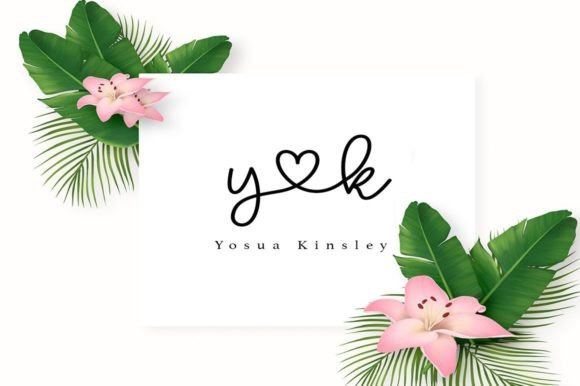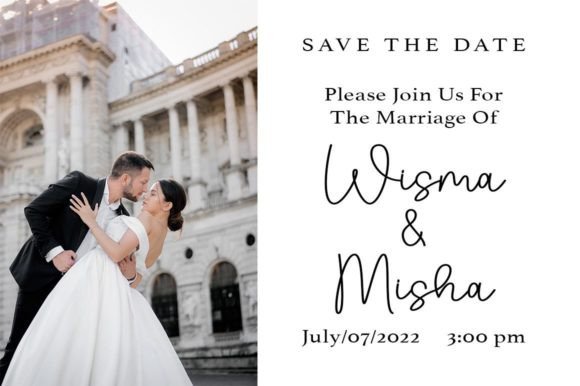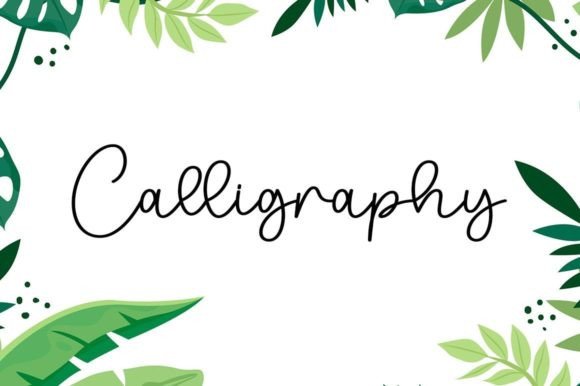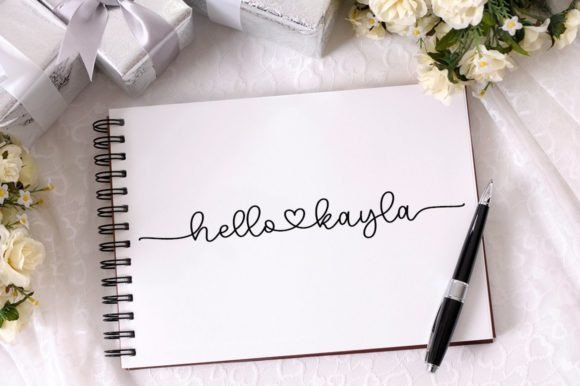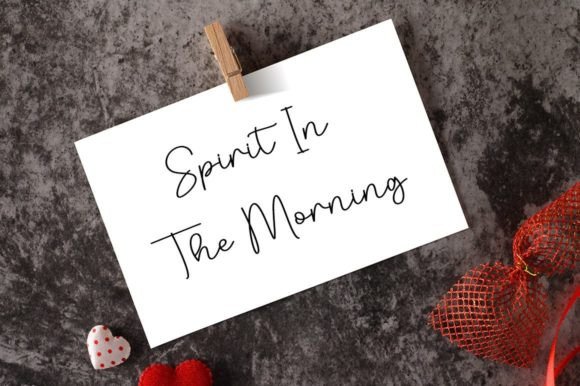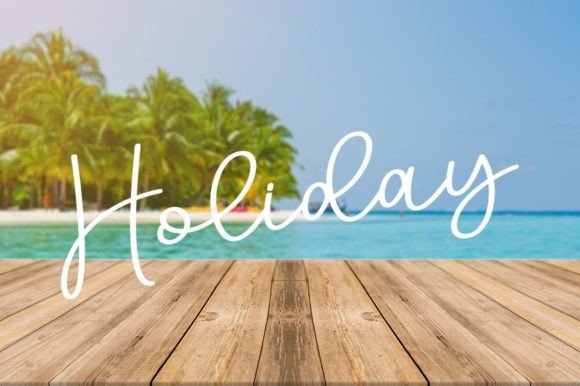
Introducing Callisa Font: Elevate Your Designs with Elegance
Are you a designer or crafter looking for a font that adds a touch of sophistication and beauty to your projects? Look no further than Callisa Font. This elegant script font is designed to enhance the aesthetic appeal of your work, making it perfect for a wide range of creative endeavors.
Balanced and Varied: The Unique Charm of Callisa
Callisa Font strikes the perfect balance between style and readability. Not too thin and not too thick, its carefully crafted design ensures that your text is both visually appealing and easy to read. This balanced approach makes Callisa an excellent choice for various applications, from elegant branding and advertising to beautiful stationery and craft projects.
Whether you’re a professional designer working on a client’s branding project or a crafter creating handmade cards and invitations, Callisa Font is an excellent addition to your toolkit. Its versatility means it can be used in a variety of contexts:
- Branding and Logos: Create a lasting impression with elegant and memorable logos.
- Stationery: Elevate your letterheads, invitations, and greeting cards with a touch of class.
- Digital Media: Enhance your social media graphics, blog posts, and website content with beautiful typography.
- Crafting: Add a professional and aesthetic appeal to your DIY projects, such as handmade crafts and personalized gifts.
Why Choose Callisa Font?
With so many fonts available, why should you choose Callisa? Here are a few compelling reasons:
- Unique Style: Callisa offers a distinctive look that sets it apart from more common fonts.
- Versatility: Its balanced design makes it suitable for a wide range of projects and applications.
- Support for Creativity: With a rich set of glyphs and swashes, Callisa encourages creativity and experimentation.
Callisa Font is a beautiful, elegant script font designed to bring a touch of sophistication and elegance to your designs. Its balanced and varied style, combined with PUA encoding for easy access to glyphs and swashes, makes it an invaluable resource for designers and crafters. Whether you’re working on a professional project or a personal craft, Callisa Font is sure to enhance the beauty and appeal of your work. Discover the difference Callisa can make in your creative endeavors today.